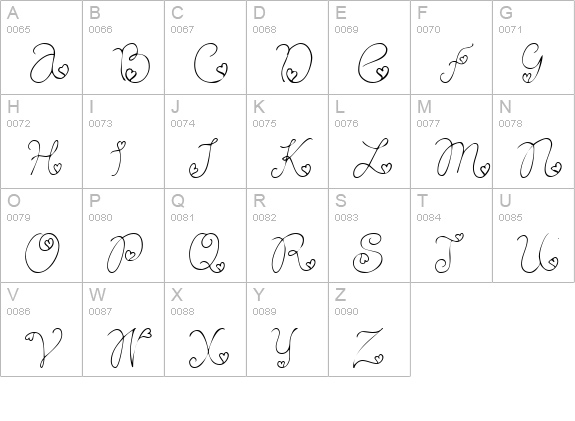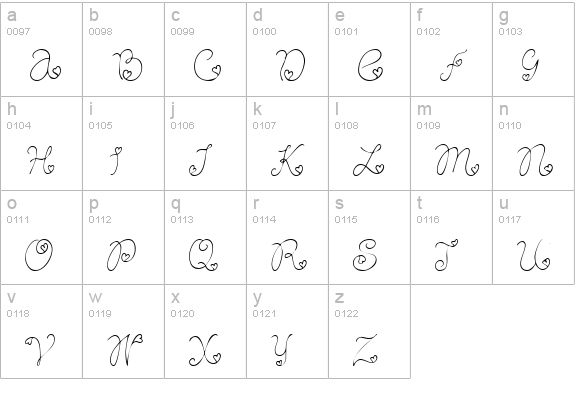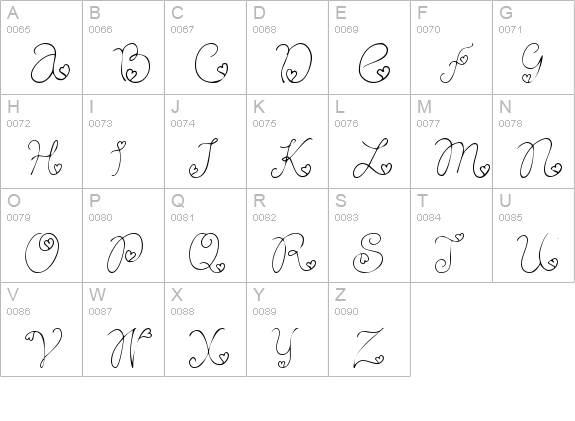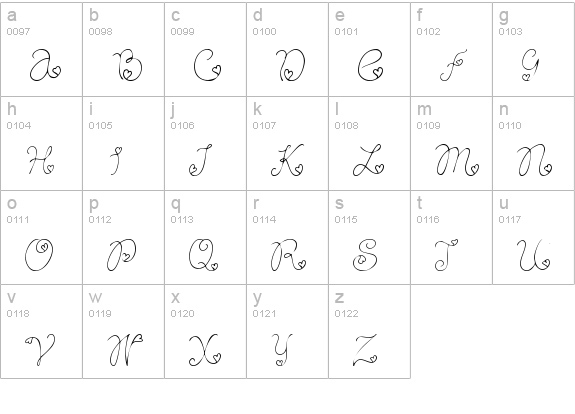
Craftopia Love Font Details
Craftopia Love is a charming and whimsical font that exudes warmth and creativity. With its playful curves and elegant flourishes, this font is perfect for adding a touch of romance to any project. Whether you're designing invitations, greeting cards, or branding materials, Craftopia Love will surely capture the hearts of your audience. Best of all, Craftopia Love is completely free to download at FontsMarket.com. So go ahead and infuse your designs with love and personality with this delightful font. Let your creativity shine with Craftopia Love!